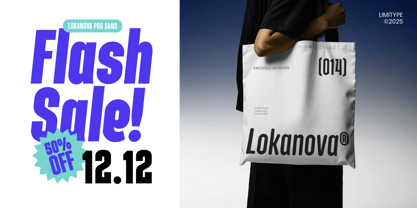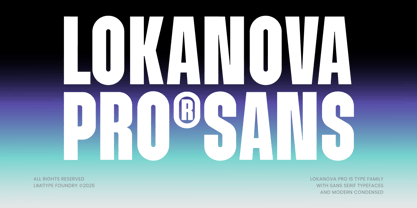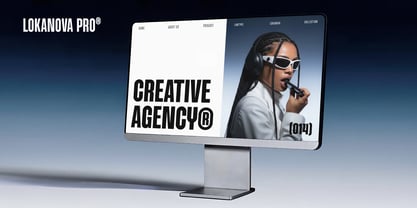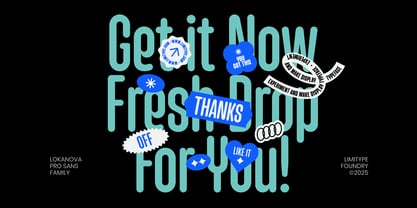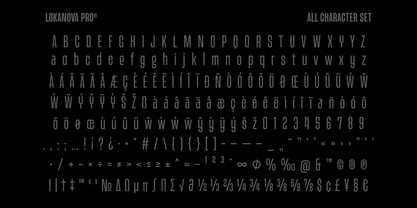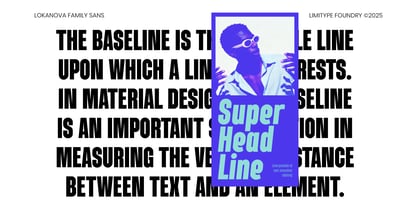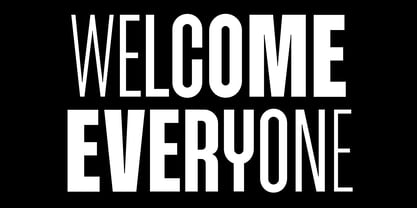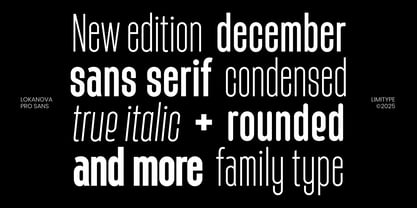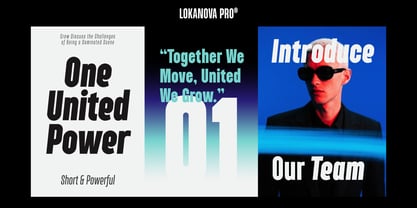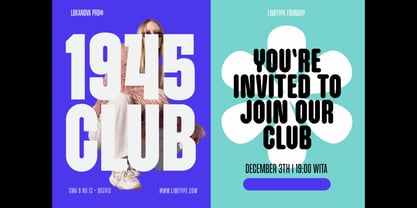
Lokanova Pro
by limitype
The Lokanova Pro Font Family was designed by Muhammad Muammar, Furqan Sudirman and published by limitype. Lokanova Pro contains 28 styles and family package options. More about this family
This is the pro version of the previous font, Lokanova Standard, featuring an updated family that is more versatile and enriched with additional glyph characters. Lokanova Pro is suitable for display needs or designs that require large text, and it can also serve as body text. Lokanova Pro available with: Uppercase Lowercase Number & Symbols Multilingual Basic, Italic, Rounded, Rounded Italic 28 Font